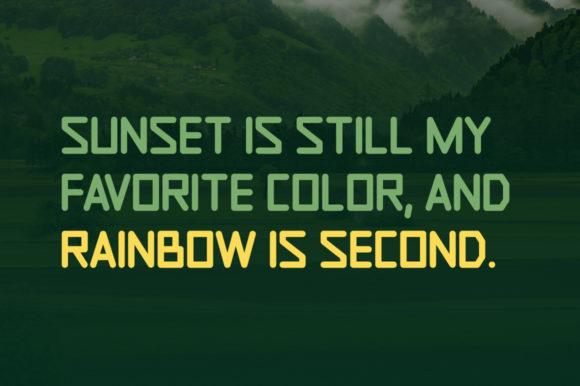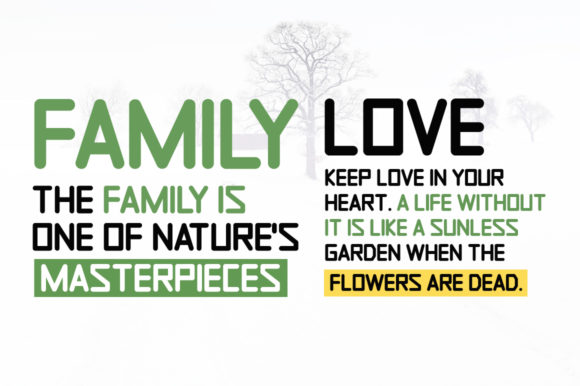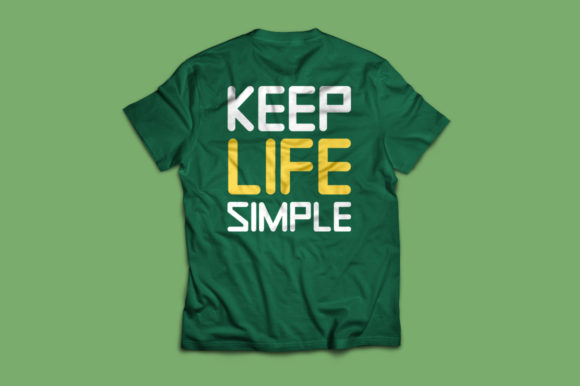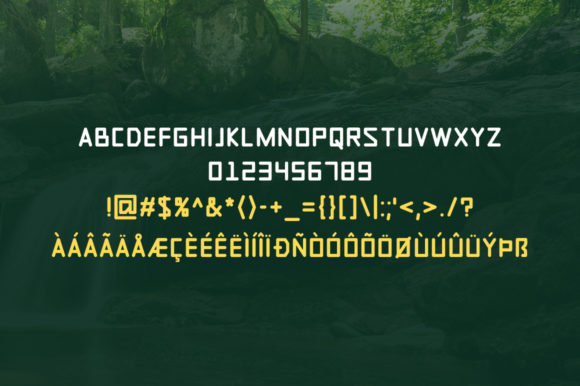
Introduction to Rosbed Font
Rosbed is a brand new modern display font.
It will add a fascinating touch to any crafting project .
Key Features of Rosbed Font
Why Choose Rosbed Font?
Rosbed Font offers exceptional quality and versatility, making it a valuable addition to your design toolkit. Whether you’re creating for personal projects or commercial use, Rosbed Font delivers professional results.